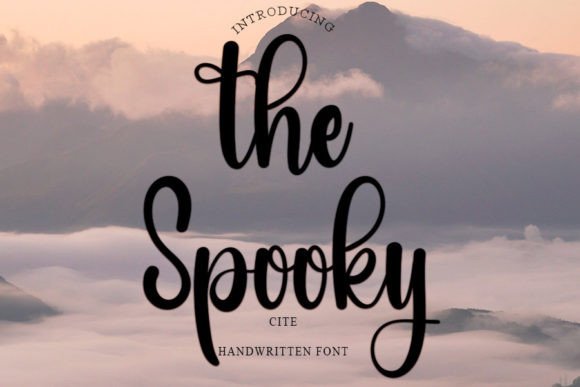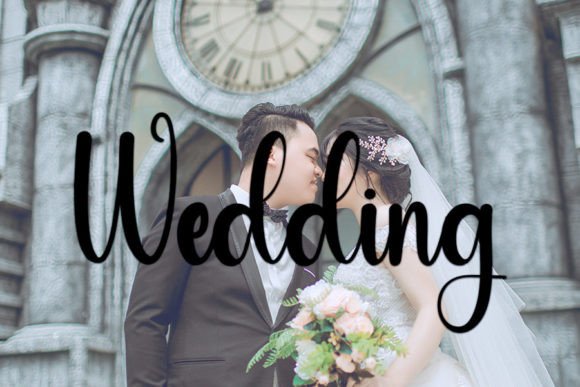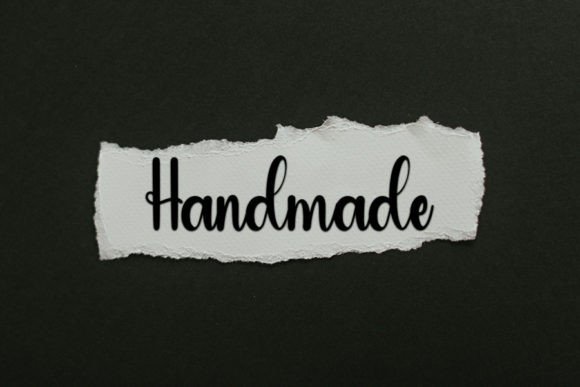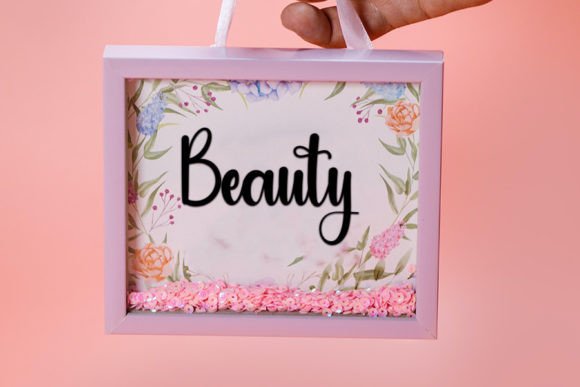
The Spooky Font
About The Spooky Font
“The Spooky” font is a truly remarkable handwritten typeface, celebrated for its exquisite elegance and timeless allure, making it the perfect choice for a wide range of creative projects. This distinctive font embodies a unique blend of charm and sophistication, allowing you to craft designs that are nothing short of spectacular.
With “The Spooky” font at your disposal, you’ll find yourself falling in love with its inherent beauty and versatility. Its handwritten style adds a personal touch to your work, making it stand out in a world filled with generic fonts. Whether you’re designing invitations, branding materials, or any other visual content, this font’s distinct character will elevate your creations to a whole new level.
The elegance of “The Spooky” font is particularly notable. Its gracefully flowing lines and carefully crafted curves give it a sense of refinement that is second to none. This font isn’t just beautiful; it’s also enduring. Its timeless style ensures that your designs won’t go out of fashion, making it a valuable asset for both current projects and those in the future.
One of the most remarkable features of “The Spooky” font is its versatility. It can effortlessly adapt to a wide range of design needs. Whether you’re aiming for a vintage look or a modern aesthetic, this font can be customized to suit your vision. Its flexibility extends to various project types, from wedding invitations to business cards, posters, social media graphics, and more. “The Spooky” font empowers you to express your creativity without limits.
Imagine crafting a wedding invitation with “The Spooky” font. The delicate, handcrafted appearance of the font will instantly set the tone for a romantic and memorable celebration. For business branding, this font can convey professionalism with a personal touch, making your company stand out in a crowded market.
The versatility of “The Spooky” font also extends to its language support, ensuring that it can be used for international projects. Whether your audience speaks English, Spanish, French, or any other language, this font can be seamlessly integrated into your designs.
In conclusion, “The Spooky” font is a truly exceptional choice for anyone seeking a handwritten typeface that exudes elegance, charm, and timeless appeal. Its adaptability, versatility, and enduring style make it the perfect companion for a wide range of design projects. Fall in love with “The Spooky” font and let it transform your creative endeavors into something truly spectacular.